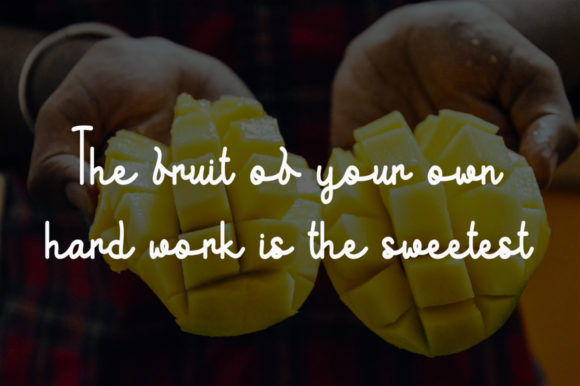
About Yellow Mango Font
Yellow Mango is a delicate and elegant handwritten font. Its distinct and well rounded letters make this font a masterpiece. Fall in love with its incredibly versatile style and use it to create spectacular designs!